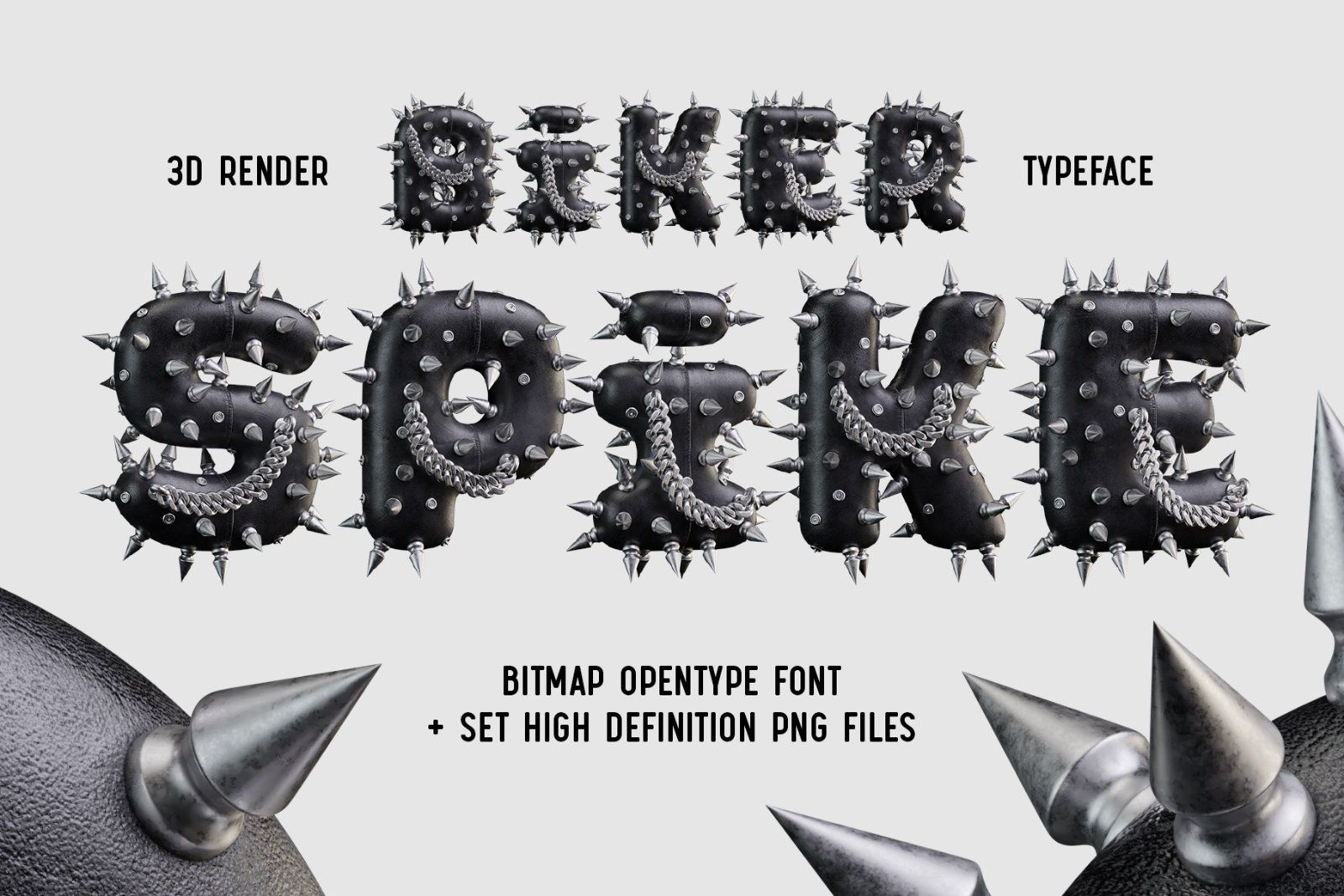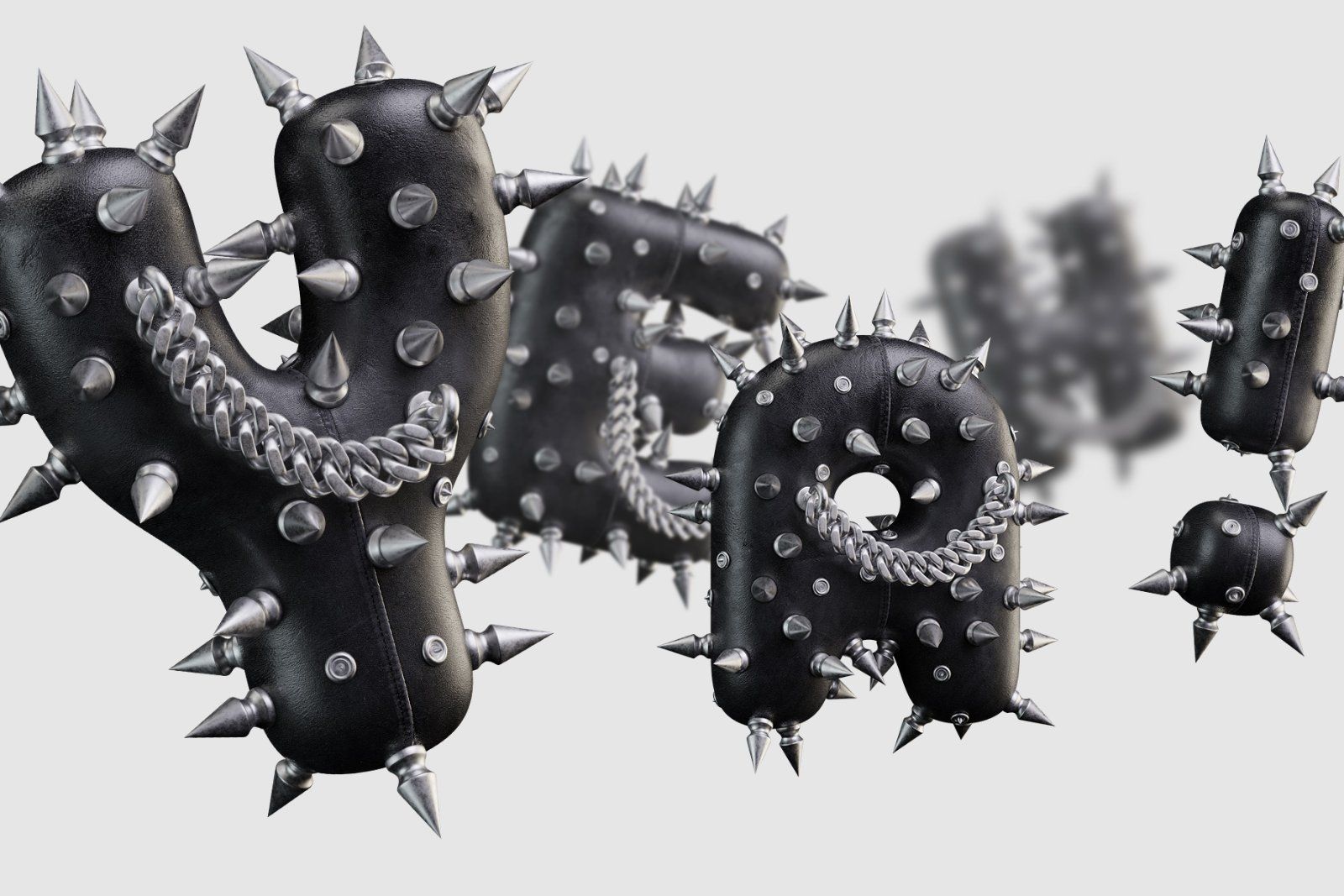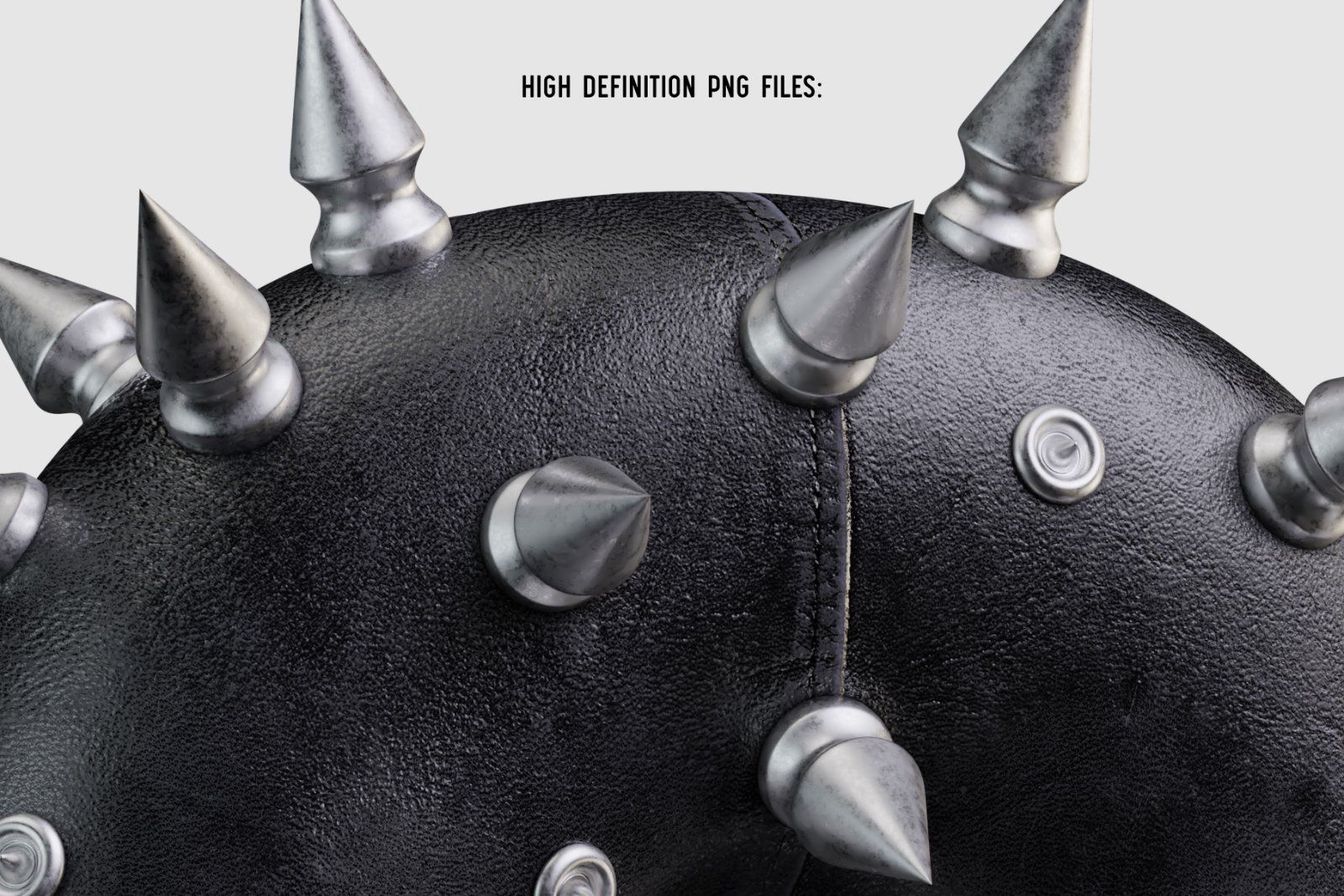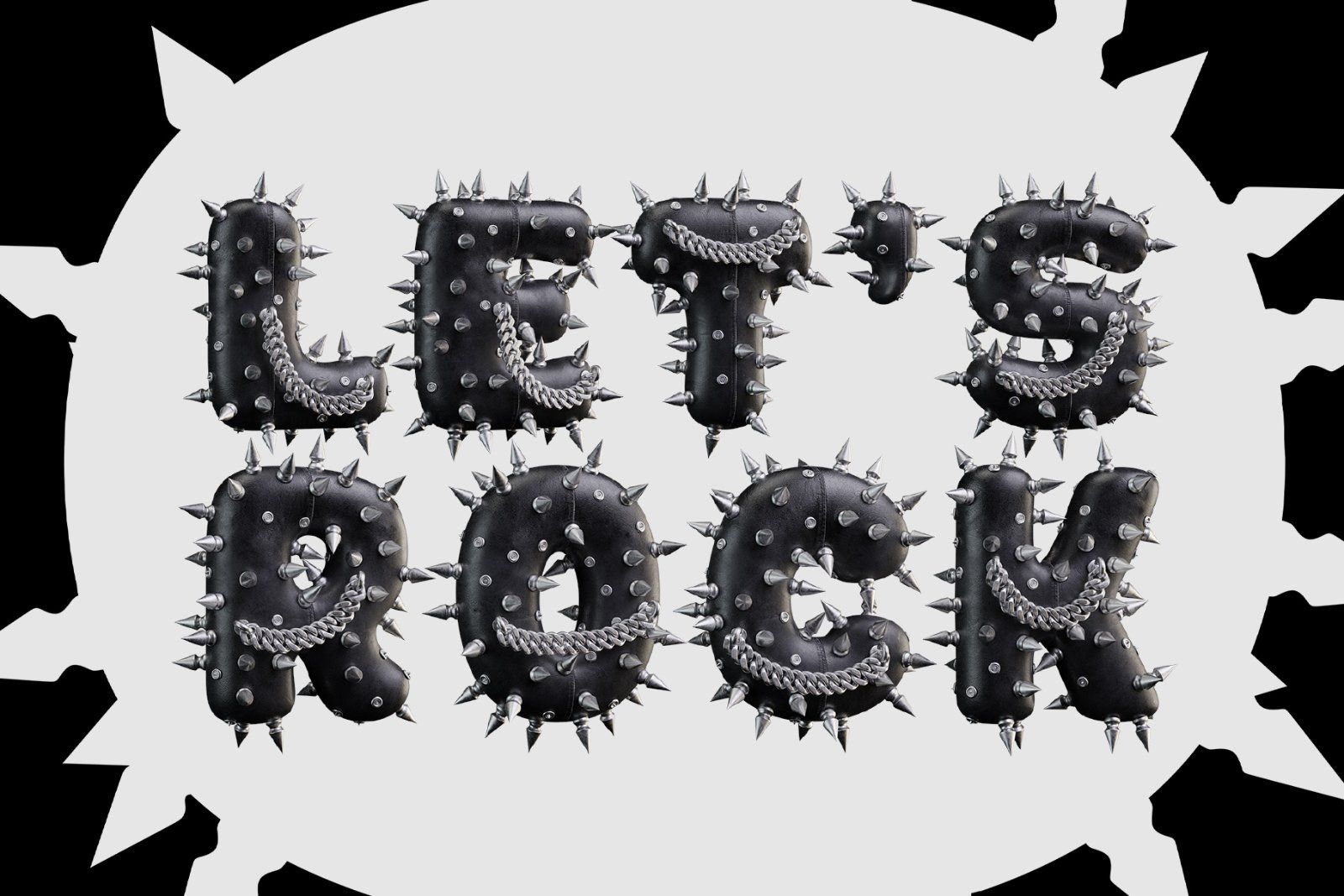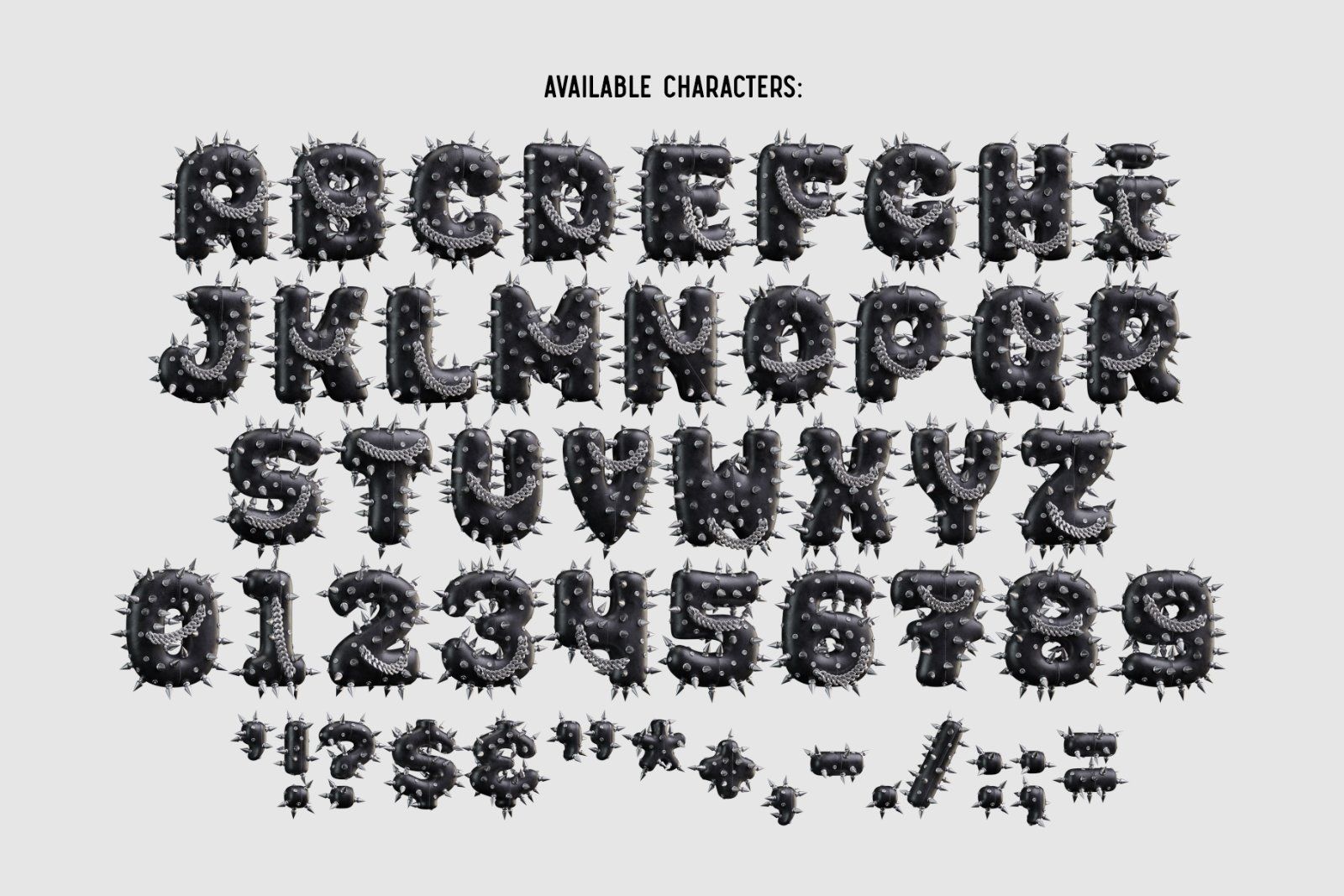
Hello! Presenting a brutal font set – Biker Spike. It's a 3d rendered high quality typeface inspired by various hard music fashion styles. Biker Spike font has a black leather base with metallic spikes and chains. First of all it's a color bitmap OpenType-SVG font that can be used as a usual OTF font. Also a set of full resolution PNG files with transparent background is included (Average resolution is 12 megapixels)
P.S: Only English language and basic punctuation is supported, please check out the screenshot with all available characters.